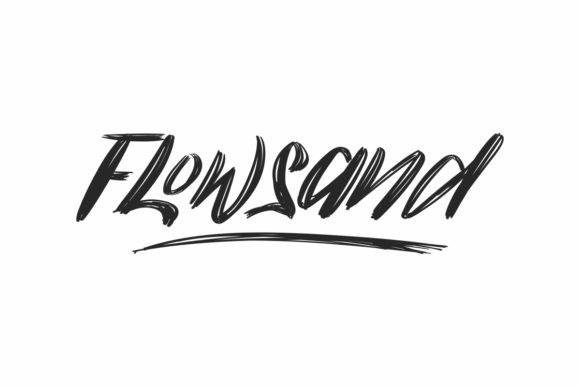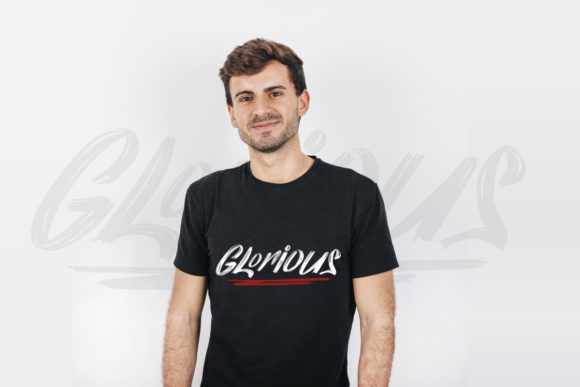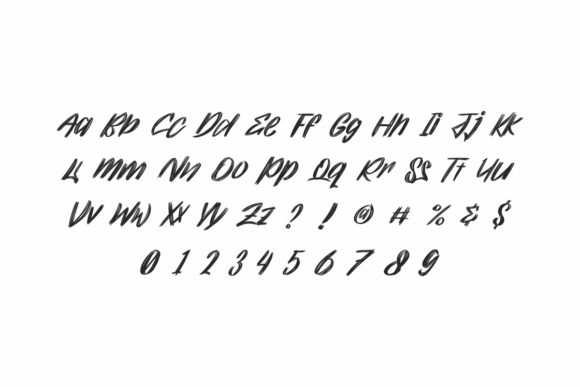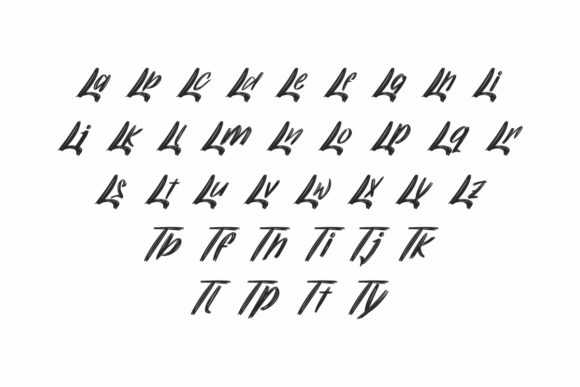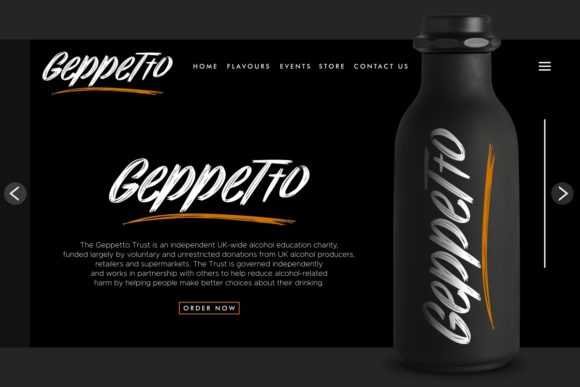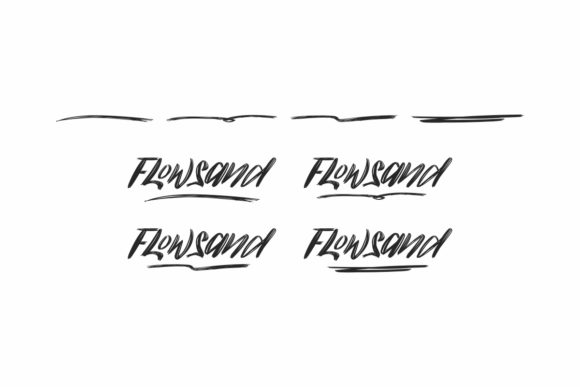
About Flowsand Font
Flowsand is a fun brush style handwritten font. Flowsand will be great for any projects including : branding, logo, stationery, business card, signage, flyer, brochure etc.